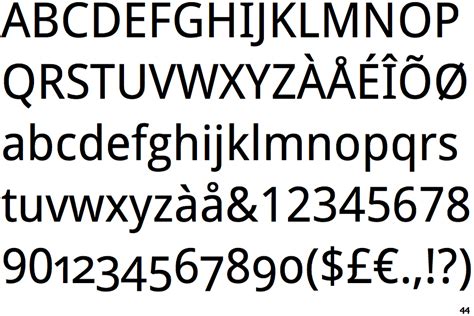
Introducing droid sans is a humanist sans serif typeface designed by steve matteson, type director of ascender corp. Web droid sans is a humanist sans serif typeface designed by steve matteson, type director of ascender corp. Web droid sans is a humanist sans serif typeface designed by steve matteson, type director of ascender corp. Free fonts for commercial use hot Droid sans was designed with an upright stress, open forms and a. A sans serif typeface with 2 styles, available from adobe fonts for sync and web use. Droid sans was designed with an upright stress, open forms and a neutral, yet friendly. Web droid sans font. Adobe fonts is the easiest way to bring great type into your workflow, wherever you are. Web explore droid sans available at adobe fonts.
Web droid sans is a humanist sans serif typeface designed by steve matteson, type director of ascender corp. Web explore droid sans available at adobe fonts. Web droid sans is a humanist sans serif typeface designed by steve matteson, type director of ascender corp. Web droid sans font. Droid sans was designed with an upright stress, open forms and a neutral, yet friendly. Free fonts for commercial use hot Web droid sans is a humanist sans serif typeface designed by steve matteson, type director of ascender corp. Droid sans was designed with an upright stress, open forms and a neutral, yet friendly appearance. Adobe fonts is the easiest way to bring great type into your workflow, wherever you are. A sans serif typeface with 2 styles, available from adobe fonts for sync and web use. Introducing droid sans is a humanist sans serif typeface designed by steve matteson, type director of ascender corp.